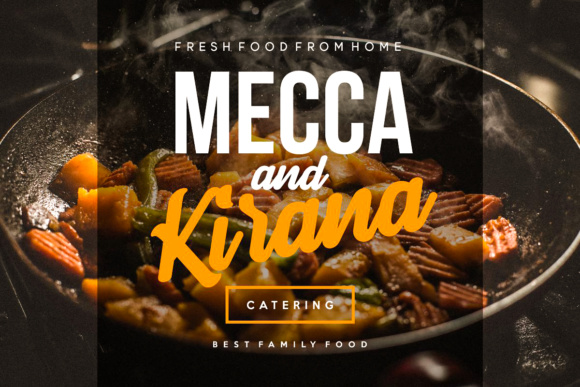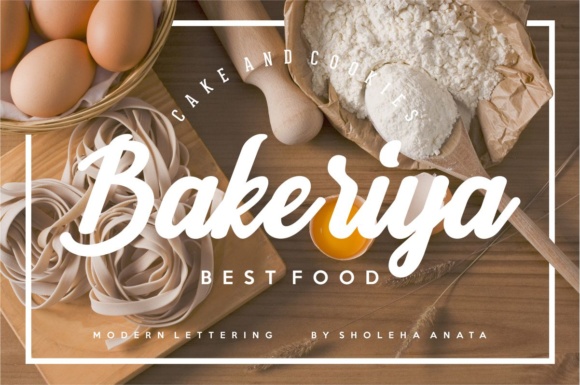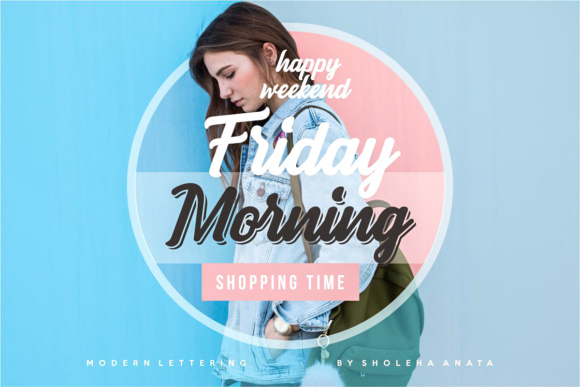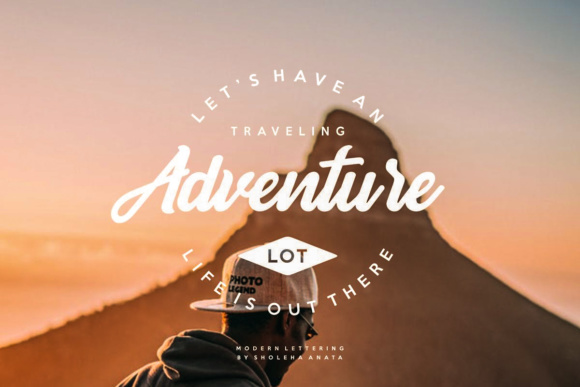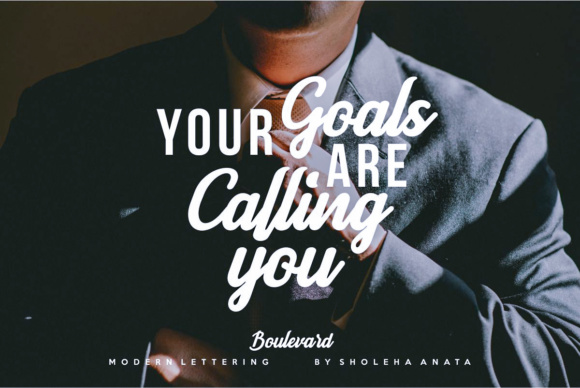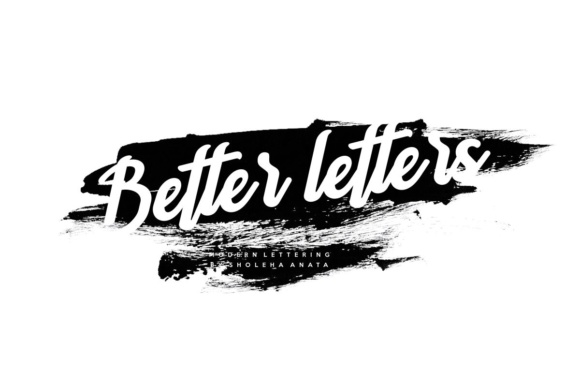
The Perfect Touch of Personality: Introducing the Boulevard Font
Have you ever sat at your desk, staring at a blank canvas, waiting for the perfect idea to strike? It’s a moment we’ve all experienced as creatives – that spark of inspiration that sets our hearts racing and our imaginations running wild. For many designers, it’s that moment when the Boulevard Font comes to mind. This fresh hand lettering script is the perfect solution for adding a personal touch to any design project.
With its modern style and smooth, clean letters, the Boulevard Font is a valuable addition to any designer’s toolkit. Whether you’re working on a branding project, a social media campaign, or a wedding invitation, this font is sure to bring a touch of elegance and sophistication to your work. And the best part? It’s incredibly easy to use, making it accessible to designers of all skill levels.
- Unique Characteristics: The font features a unique blend of modern and classic elements, with a focus on elegant lines, subtle curves, and a sophisticated feel.
- Font Style: Boulevard Font is available in multiple styles, including Regular, Italic, Bold, and Bold Italic, allowing designers to create a range of visual effects and moods.
Boulevard Font Review
I recently had the chance to work with the Boulevard Font, and I must say it’s a stylish addition to any design project. Here are my thoughts on what makes it shine:
- ✨ Elegant and sophisticated feel: The Boulevard Font has a refined, high-end look that’s perfect for luxury brands, fashion, and other upscale projects.
- ✨ Great legibility: Despite its intricate design, the font is surprisingly easy to read, making it suitable for a wide range of applications.
- ✨ Versatility: Boulevard Font comes in multiple weights and styles, allowing designers to experiment with different moods and atmospheres.
However, as with any font, there are some limitations to consider:
- ⚠️ Limited language support: The font may not be optimized for non-Latin scripts, which could be a problem for international projects.
- ⚠️ Not ideal for body text: While the font is great for headlines and titles, its intricate design might not be the best choice for large blocks of text.
Overall, I think the Boulevard Font is a solid choice for designers looking to add some sophistication to their projects. While it may not be perfect for every situation, its elegance and versatility make it a valuable addition to any design arsenal.
Getting the Most Out of Boulevard Font
To get the most out of Boulevard Font, use it for headings and titles, as it is a elegant and sophisticated font. Use it in combination with other fonts to create a visually appealing design. Also, experiment with different font sizes and styles to create a unique look.
Boulevard Font is commonly used in:
– Luxury branding and marketing materials
– High-end product packaging and labels
– Elegant website designs and typography